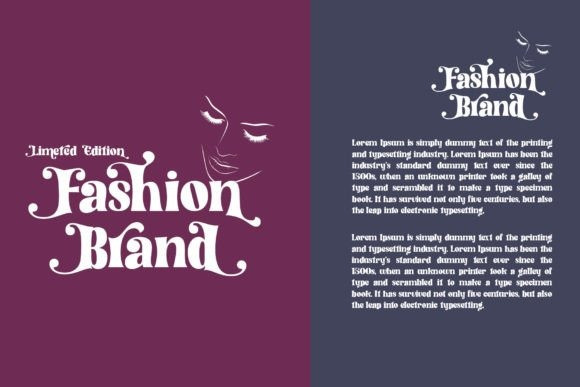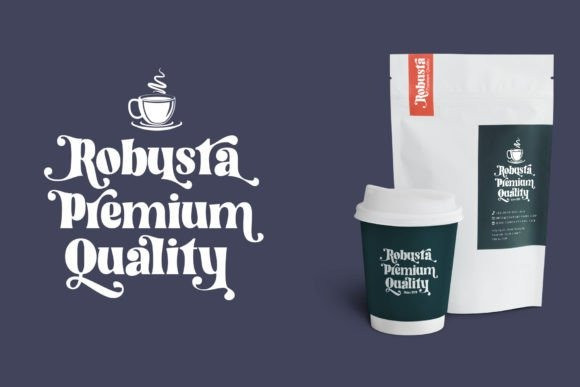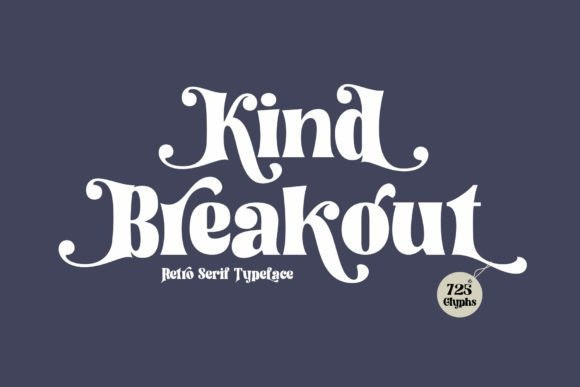
Kind Breakout Font
Kind Breakout Serif Font is a bold and modern take on 70s-style lettering that gives a playful and young vibe to any design.
If your latest project needs a touch of sass, it’s time to introduce Kind Breakout to your font library. This font is PUA encoded, which means you can access all of the glyphs and swashes with ease!